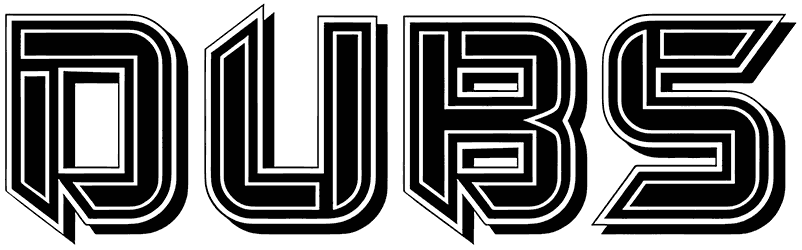
Dubs Font
Long story short, you can throw a modern and eye-catching vibe into your innovative design with this unique techno font. The Dubs font’s letters are bold and 3D, but it doesn’t include lowercase letters and most punctuation marks. Put this robot font on your intended layout, namely an automotive company billboard, and become unforgettable.